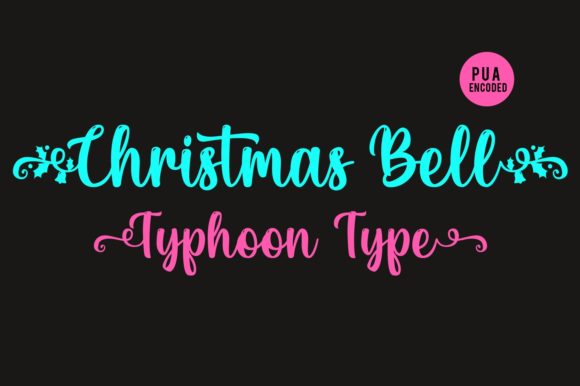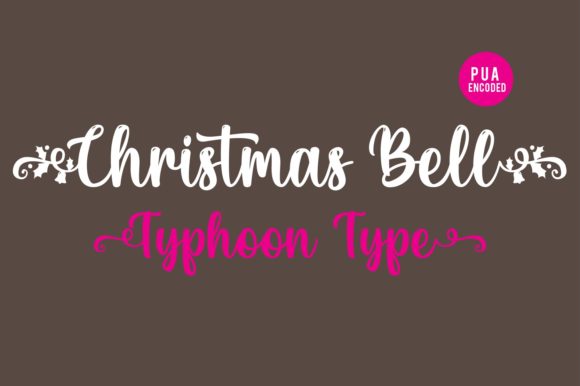
Introducing Christmas Bell Font: A Warm and Round Handwritten Delight
Are you looking for a font that captures the warmth and magic of the holiday season? Look no further than Christmas Bell Font, a beautiful handwritten font that is perfect for creating holiday-themed greeting cards, crafting projects, and more. With its round and romantic lettering, Christmas Bell Font is sure to add a touch of festive charm to any design.
What is Christmas Bell Font?
Christmas Bell Font is a carefully crafted handwritten font that is designed to evoke the feeling of a warm and cozy holiday season. Its round and bubbly lettering gives it a playful and romantic feel, making it perfect for a variety of creative projects. Whether you’re a designer looking to create festive greeting cards, or a crafter looking to add a personal touch to your holiday crafts, Christmas Bell Font is the perfect choice.
Key Features of Christmas Bell Font
- Warm and Round Lettering: Christmas Bell Font features a unique and charming lettering style that is both warm and inviting.
- Handwritten Style: This font is carefully crafted to mimic the look and feel of handwritten lettering, giving it a personal and romantic touch.
- Perfect for Holiday Crafts: Christmas Bell Font is ideal for creating holiday-themed greeting cards, gift tags, and other crafting projects.
- Easily Readable: Despite its playful and cursive nature, Christmas Bell Font is easily readable, making it perfect for use in a variety of designs.
Uses for Christmas Bell Font
Christmas Bell Font is a versatile font that can be used in a variety of creative projects, including:
- Holiday Greeting Cards: Add a personal touch to your holiday greeting cards with Christmas Bell Font.
- Crafting Projects: Use Christmas Bell Font to add a romantic touch to your holiday crafting projects, such as gift tags, scrapbooking, and more.
- Social Media Graphics: Use Christmas Bell Font to create festive social media graphics, such as holiday-themed Facebook posts and Instagram stories.
- Digital Papers: Create beautiful digital papers with Christmas Bell Font, perfect for use in digital scrapbooking and other creative projects.
Tips for Using Christmas Bell Font
Here are a few tips for getting the most out of Christmas Bell Font:
- Pair with Other Fonts: Christmas Bell Font pairs well with a variety of other fonts, including bold and modern fonts.
- Experiment with Colors: Try using Christmas Bell Font in a variety of colors, including traditional holiday colors like red and green.
- Add Decorations: Consider adding decorations, such as holly or snowflakes, to your designs to give them an extra festive touch.
Christmas Bell Font is a beautiful and versatile font that is perfect for adding a touch of festive charm to any design. With its warm and round lettering, this font is ideal for holiday-themed greeting cards, crafting projects, and more. Whether you’re a designer or a crafter, Christmas Bell Font is sure to become a favorite in your creative toolkit.